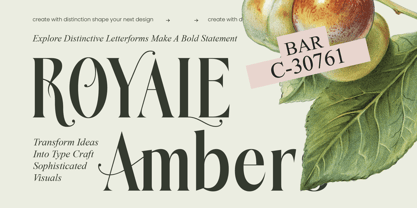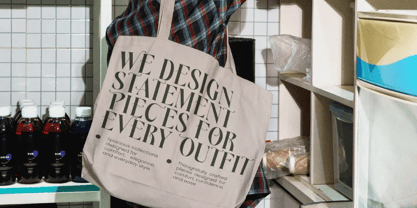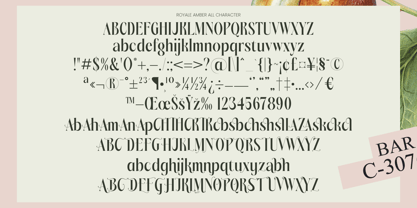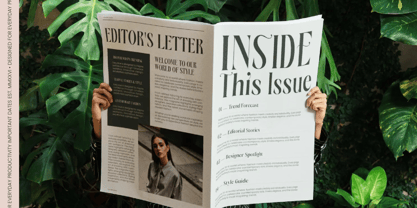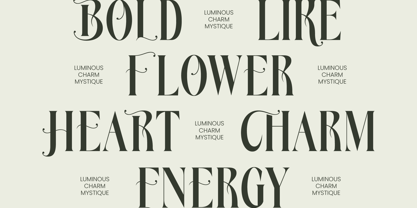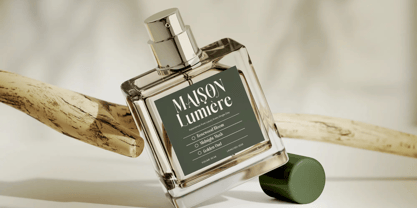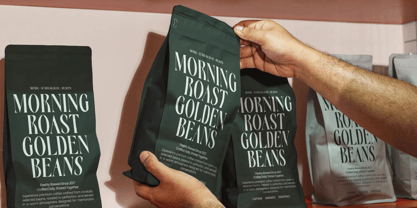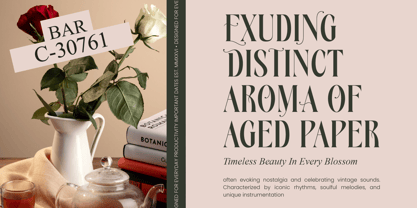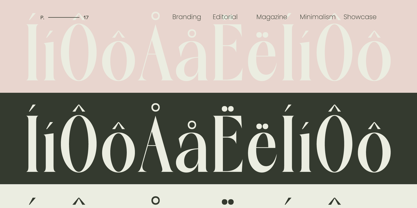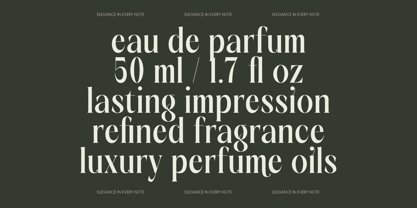
Royale Ambers
von Timelesstype Studio
Die Schriftfamilie Royale Ambers wurde von Heru Utama Putra entworfen und von Timelesstype Studio veröffentlicht. Royale Ambers enthält 2 Stile und Familienpaketoptionen. Mehr über diese Familie
Elevate your creative vision with Royale Ambers - Editorial Serif, a masterpiece of modern typography that blends classic sophistication with contemporary flair. This high-contrast typeface is meticulously crafted to bring an air of unmatched elegance to every layout, offering a refined aesthetic that captures the eye instantly. Its graceful curves and sharp serifs ensure that your messaging stands out with a premium look and feel, setting a new standard for professional design projects.